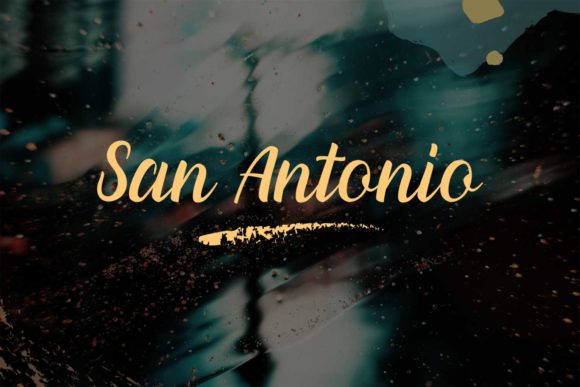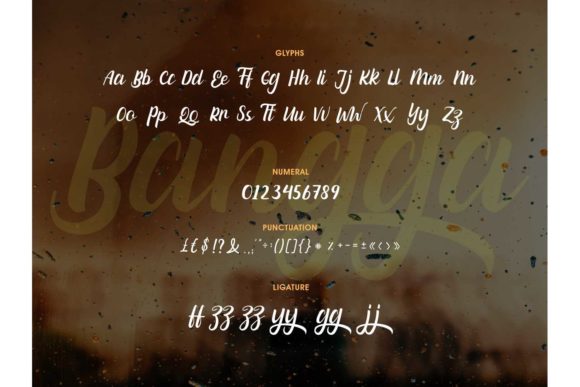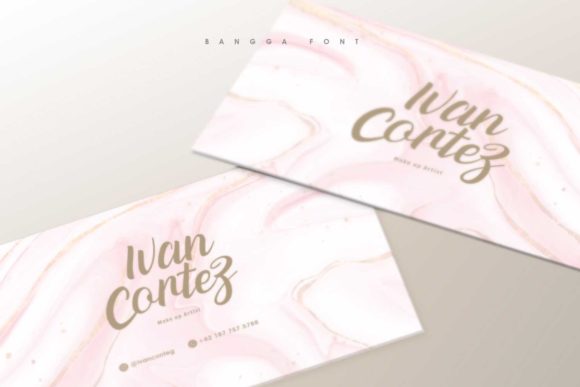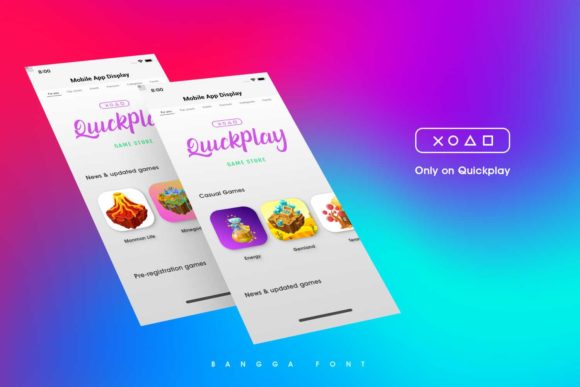
Bangga Font: Elevate Your Designs with this Beautiful Handwritten Font
Are you tired of using the same old fonts in your designs? Look no further than Bangga Font, a stunning handwritten font that’s sure to capture your audience’s attention. Designed to flow easily, Bangga is an incredibly versatile font that can be used to create a wide range of beautiful designs, from wedding invitations and stationery to social media posts and more.
The Beauty of Bangga Font
Bangga Font is a true gem in the world of typography. Its beautiful, handwritten style is perfect for adding a personal touch to any design. The font’s flowing lines and curves create a sense of elegance and sophistication, making it ideal for designs that require a touch of class. Whether you’re creating a wedding invitation, a social media post, or a piece of stationery, Bangga Font is sure to make your design stand out.
What Makes Bangga Font So Versatile?
One of the things that sets Bangga Font apart from other fonts is its incredible versatility. This font can be used in a wide range of designs, from formal to informal, and can be paired with a variety of other fonts to create a unique look. Whether you’re creating a design for a wedding, a birthday party, or just a social media post, Bangga Font is sure to fit the bill.
Uses for Bangga Font
So, what can you use Bangga Font for? The possibilities are endless! Here are a few ideas to get you started:
• Wedding Invitations: Bangga Font is perfect for creating beautiful wedding invitations that set the tone for your special day.
• Stationery: Add a personal touch to your stationery with Bangga Font, perfect for creating gorgeous notecards, letters, and more.
• Social Media Posts: Make your social media posts stand out with Bangga Font, perfect for creating eye-catching graphics and quotes.
• Signage: Use Bangga Font to create beautiful signage for your business or event, perfect for adding a touch of elegance and sophistication.
Why Choose Bangga Font?
So, why choose Bangga Font over other fonts? Here are just a few reasons why Bangga Font stands out:
• Unique Style: Bangga Font has a unique, handwritten style that’s sure to capture your audience’s attention.
• Versatility: Bangga Font can be used in a wide range of designs, from formal to informal.
• High-Quality: Bangga Font is a high-quality font that’s designed to produce crisp, clear results.
Tips for Using Bangga Font
Here are a few tips for using Bangga Font in your designs:
• Pair with Other Fonts: Bangga Font pairs well with a variety of other fonts, so don’t be afraid to experiment and find the perfect combination for your design.
• Use in Combination with Images: Bangga Font looks great in combination with images, so consider using it to add text to your photos and graphics.
• Experiment with Colors: Bangga Font looks great in a variety of colors, so don’t be afraid to experiment and find the perfect color for your design.
In conclusion, Bangga Font is a beautiful handwritten font that’s sure to elevate your designs. With its incredibly versatile style and ease of use, Bangga Font is perfect for designers and crafters looking to add a personal touch to their work. Whether you’re creating wedding invitations, stationery, social media posts, or more, Bangga Font is sure to make your design stand out. So why wait? Download Bangga Font today and start creating stunning designs that capture your audience’s attention!